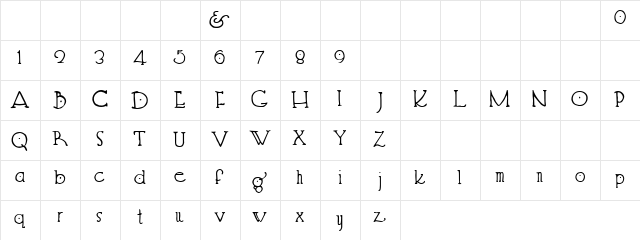
Hendershot Regular
Design Context for Hendershot Typeface
Hendershot is a composed and adaptable typeface that performs quietly and consistently across a wide range of design contexts.